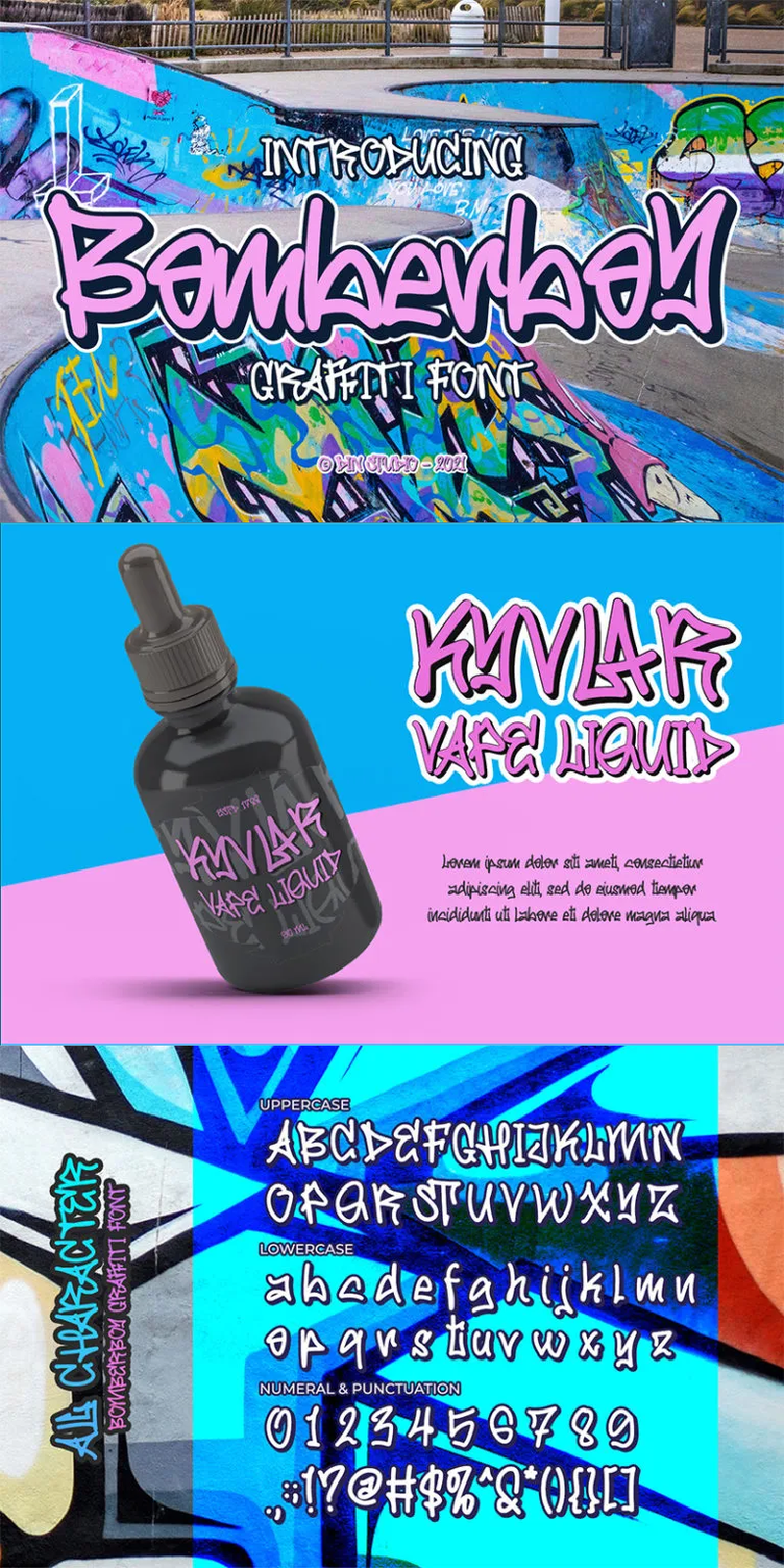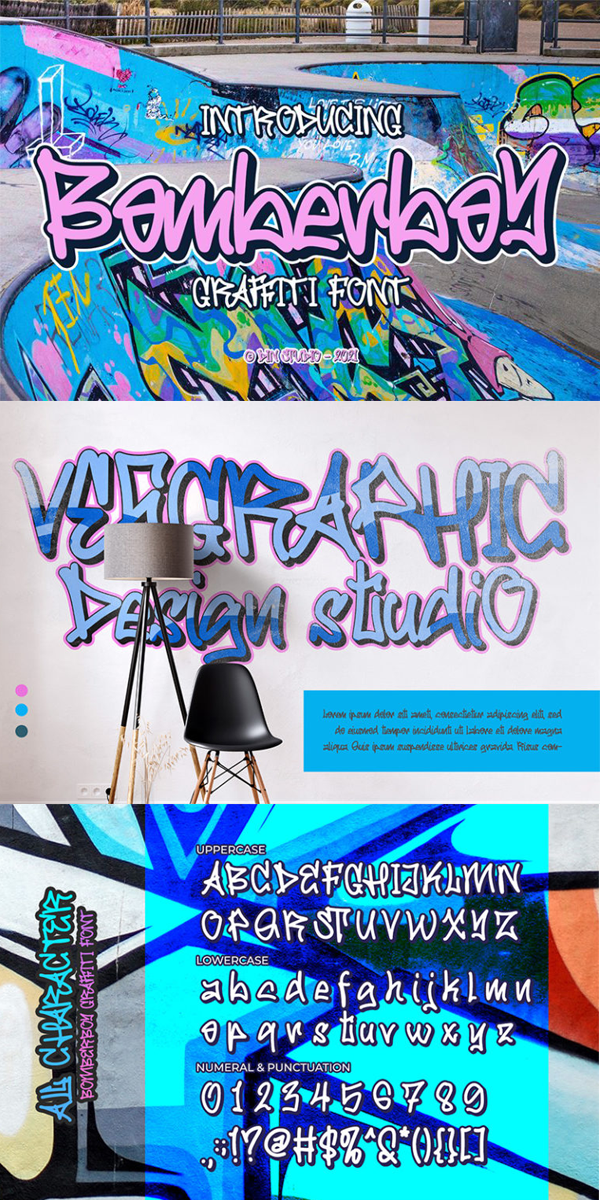
Bomberboy Font
About Bomberboy
Bomberboy – A Grafiti Font
The font is offered in two versions: solid and shadow. Use this cool, colourful graffiti font to breathe a street life vibe into your projects. It is perfect for logos, printed quotes, cards, packaging, website or social media branding, and many more!